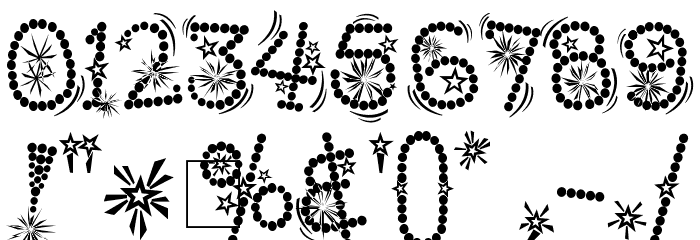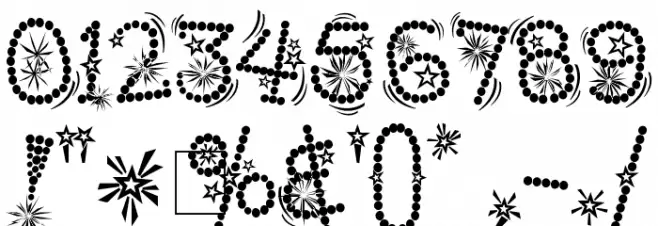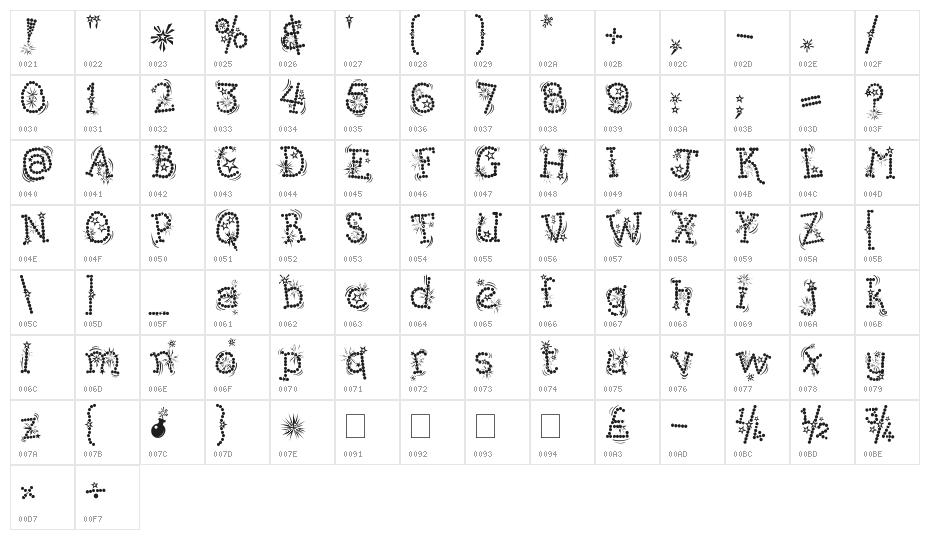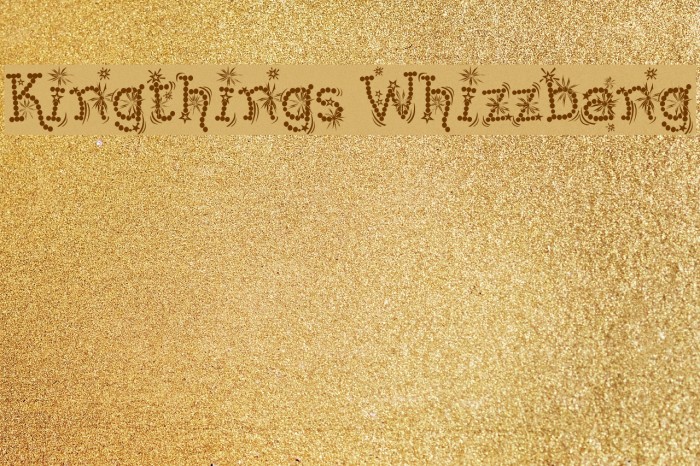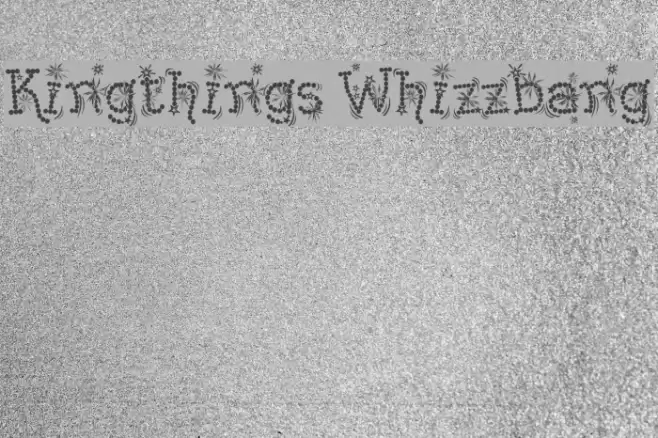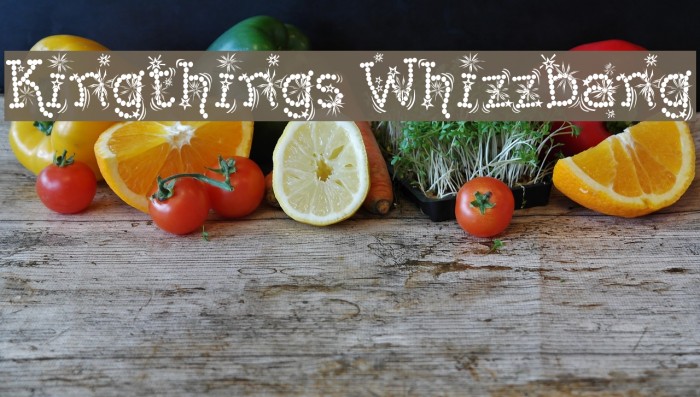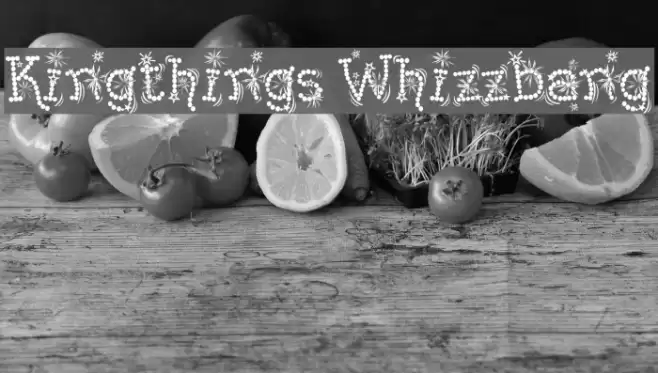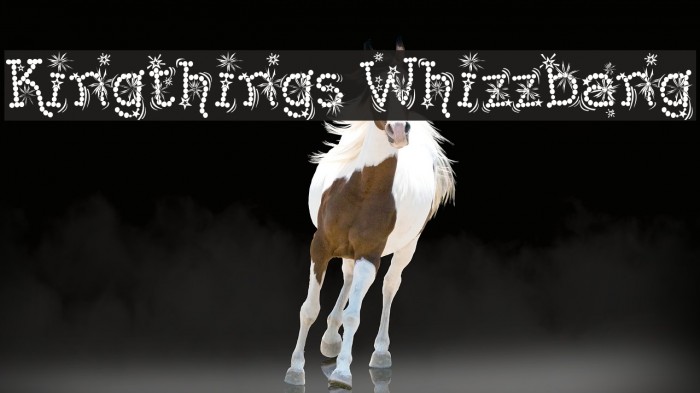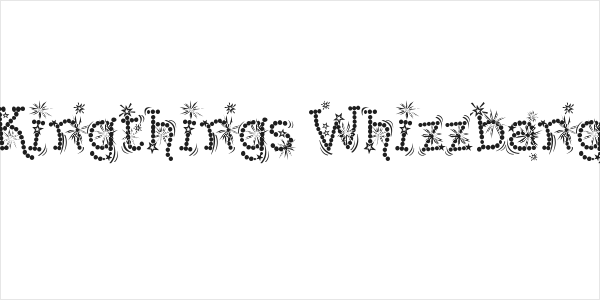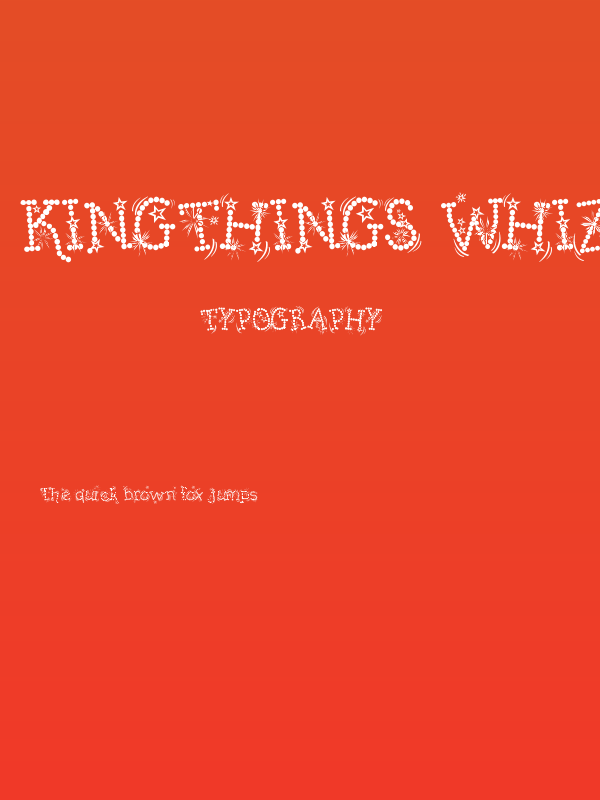
Kingthings Whizzbang Font
Kingthings Whizzbang Description
This font is a highly decorative and whimsical typeface featuring intricate patterns and playful elements within each character. The letters are adorned with stars, dots, and various ornamental designs that give it a festive and dynamic appearance. The style is bold and eye-catching, making it ideal for creative and artistic projects. Each character is unique, with a mix of geometric shapes and organic forms that create a lively and energetic feel. The font's distinctiveness makes it suitable for projects that require a touch of fun and creativity.
| Proposed Projects | Ideal for party invitations, festive event posters, children's book covers, and creative branding. |